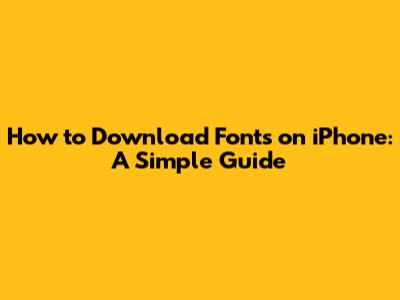
- Personalization: Your iPhone is your personal device, so why not make it truly yours? Custom fonts let you express your unique style and personality.
- Accessibility: Some fonts are easier to read than others. If you have visual impairments or simply prefer a different style, downloading a new font can significantly improve your reading experience. Choose fonts that offer better clarity and readability for your specific needs.
- Creative Projects: If you use your iPhone for graphic design, social media content creation, or any other creative work, having a wider selection of fonts can take your projects to the next level. Imagine creating stunning visuals with unique typography right from your phone!
- Fun and Variety: Let's be honest, sometimes it's just fun to switch things up! New fonts can add a fresh and exciting feel to your everyday iPhone experience. Variety keeps things interesting and prevents your phone from feeling stale.
- Pages, Numbers, and Keynote: Apple's own productivity apps fully support custom fonts. You can use them to create documents, spreadsheets, and presentations with unique typography.
- Adobe Creative Cloud Apps: Apps like Photoshop Mix, Adobe Spark Post, and Creative Cloud Express allow you to use custom fonts in your designs.
- Third-Party Apps: Many other apps, especially those focused on graphic design, social media, and note-taking, also support custom fonts. Check the app's settings or documentation to see if it supports custom fonts and how to enable them.
- Remove Old Profiles: If you've installed a lot of configuration profiles in the past, they might be conflicting with the new one. Go to Settings > General > Profiles & Device Management and remove any old or unused profiles.
- Reinstall the Font: Try deleting the font file and the configuration profile, and then reinstalling the font from scratch.
- Font Looks Weird or Doesn't Display Correctly:
- Font Compatibility: Some fonts might not be fully compatible with iOS or certain apps. Try using a different font.
- Font File Corruption: The font file might be corrupted. Download the font from a different source or try a different font file.
- Readability: First and foremost, choose fonts that are easy to read. Avoid overly decorative or stylized fonts that can strain the eyes. Opt for fonts with clear, well-defined letterforms.
- Purpose: Consider the purpose of the text. A font that looks great for a party invitation might not be suitable for a formal document. Choose fonts that match the tone and style of your content.
- Legibility: Make sure the font is legible at different sizes. Test it out in various apps and at different zoom levels to ensure it remains readable.
- Pairing: If you're using multiple fonts in a design, make sure they complement each other. Avoid using fonts that clash or compete for attention. A good rule of thumb is to pair a serif font with a sans-serif font.
- Personality: Ultimately, choose fonts that reflect your personal style and preferences. Experiment with different fonts and find the ones that you love!